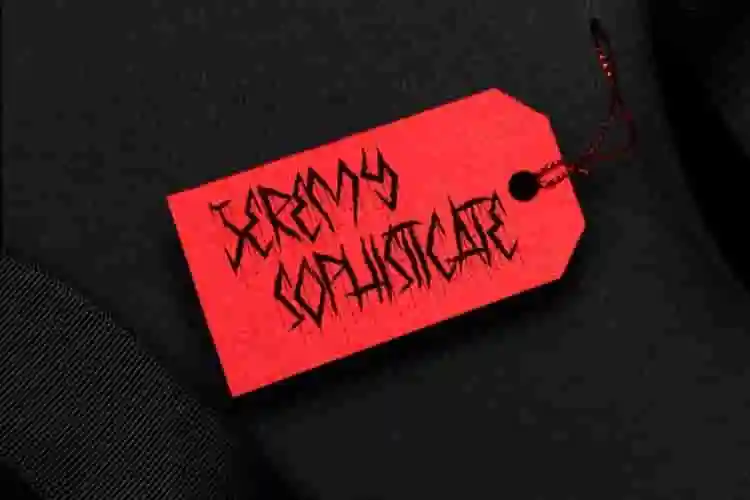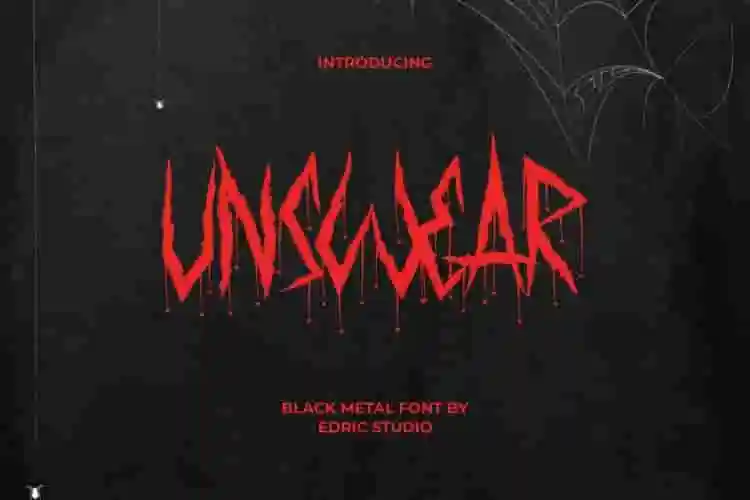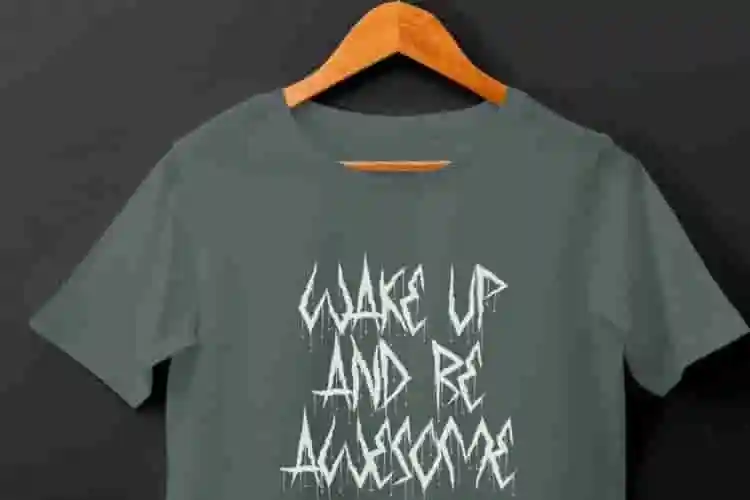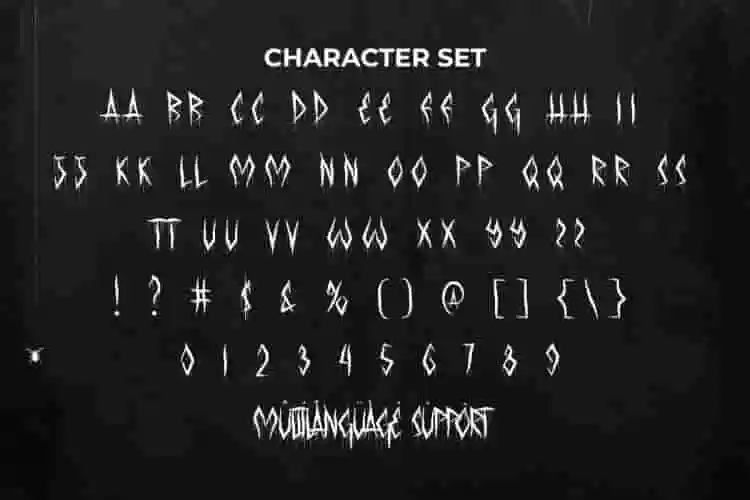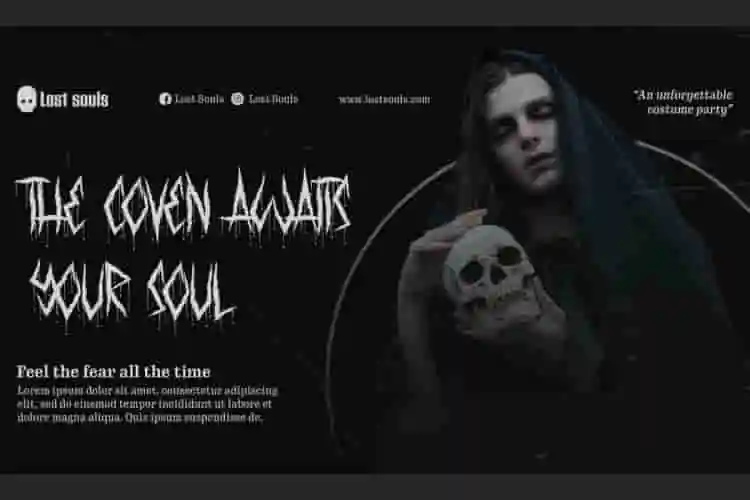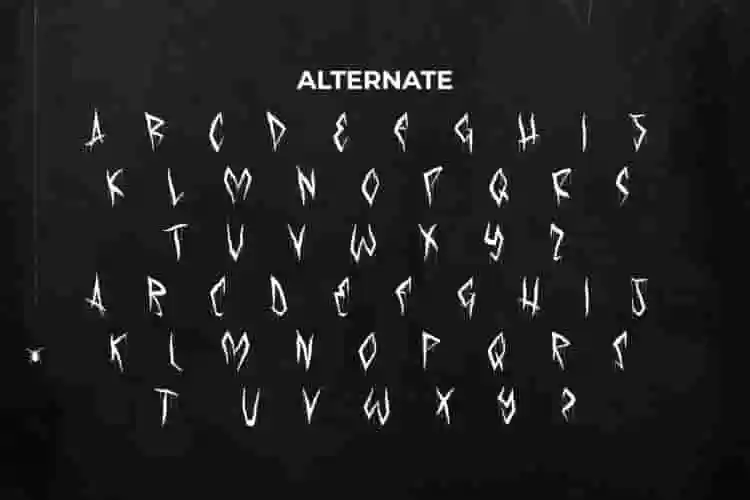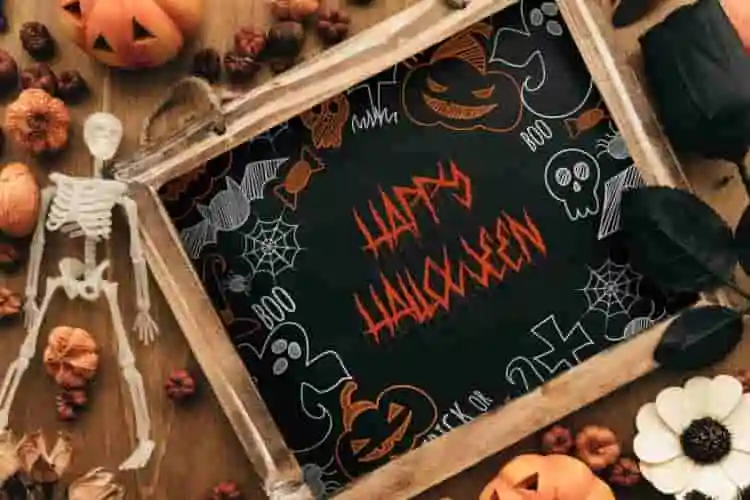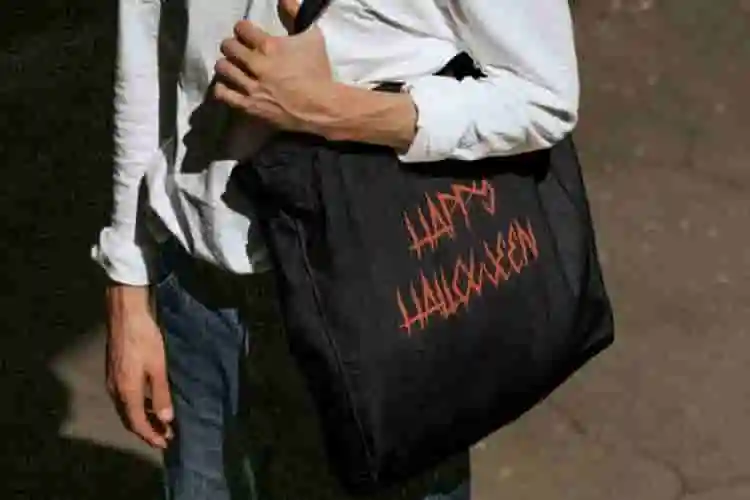
Unswear Font is a hardcore black metal horror mysterious display font with an overriding impression. This font has a letter design that is often sharp, harsh brush selection with distinct drops of blood around it to symbolize the intensity of power and an aggressive feel. It works great in album artwork or cover, billboard, branding logos, headers, labels, print on fabrics, posters, promotional materials, title, websites, and any design that requires a touch of the death metal style.
Introducing Unswear Grunge Display Font – a bold, edgy, and modern typeface designed to make a statement with confidence and power. Featuring sharp details, striking shapes, and a strong display style, Unswear is built for projects that demand boldness and creativity. Perfect for posters, logos, apparel, product packaging, and social media graphics, this font ensures your designs stand out in any setting.
Unswear Grunge Display Font blends urban energy with modern design, making it an excellent choice for branding, advertising campaigns, gaming visuals, and event promotions. Its impactful letterforms are perfect for industries like sports, lifestyle, entertainment, and fashion. Whether you’re creating bold headlines, stylish merchandise, or eye-catching digital content, Unswear adds fearless energy and modern flair to your work.
Unswear Grunge Display Font includes a complete basic set in ALL CAPS for both uppercase and lowercase letters, Numbers, Punctuation and Symbols. It also includes optional Alternates to add visual value to font. This is clearly different from blackletter because the letters are not gothic, but they are both able to convey an aura of mysticism and brutality, so this type perfectly conveys the atmosphere of black metal culture. Perfect for clothing brand, Halloween, fashion, film, game, graphic design, metal concerts, etc.